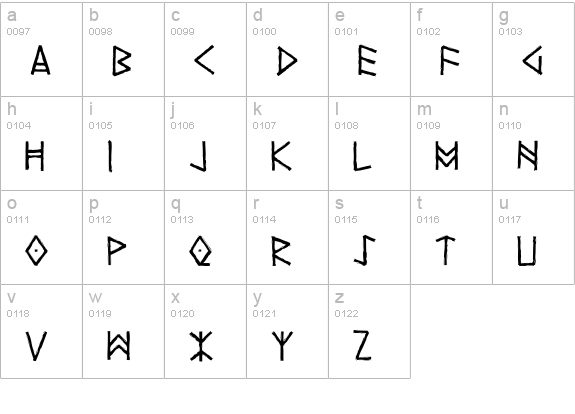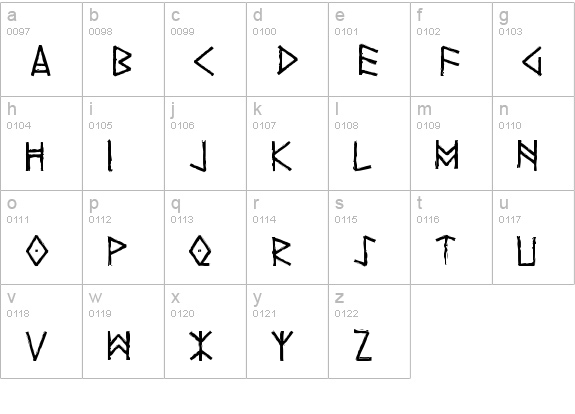
Yggdrasil Font Details
Yggdrasil font is a stunning display typeface that exudes elegance and sophistication. Its intricate details and unique design make it perfect for a wide range of creative projects, from branding to editorial design. The font features a harmonious blend of modern and classic elements, resulting in a versatile and eye-catching typeface that will surely make your designs stand out. What makes Yggdrasil font even more appealing is that it is completely free to download at FontsMarket.com. This means that you can access this beautiful font without any cost, making it a valuable addition to your font library. Whether you're a professional designer or a hobbyist looking to elevate your projects, Yggdrasil font is a must-have resource that offers both style and accessibility. Download it today and unleash your creativity with this exceptional typeface.